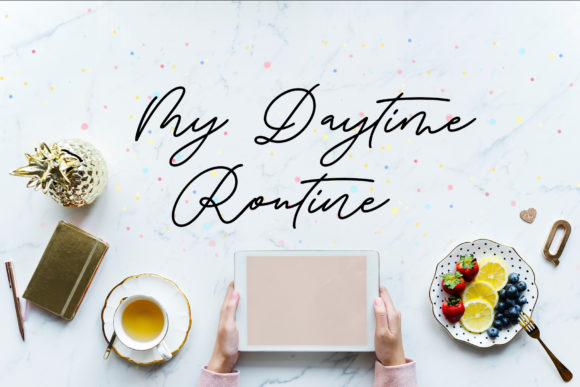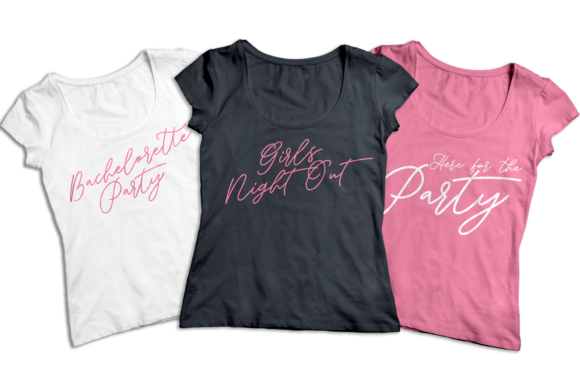
Saturday Champagne Font
db-ku.com - Script & Handwritten -- Saturday Champagne is a fancy and vibrant script font that will look wonderful across a wide range of designs.